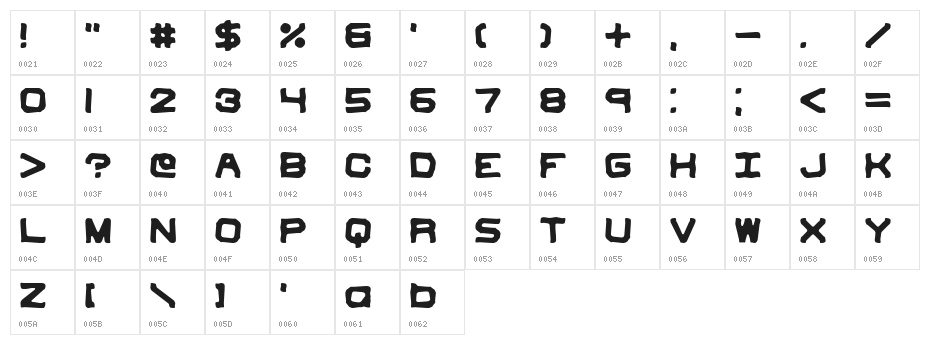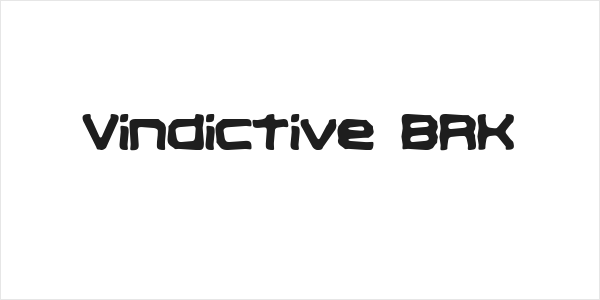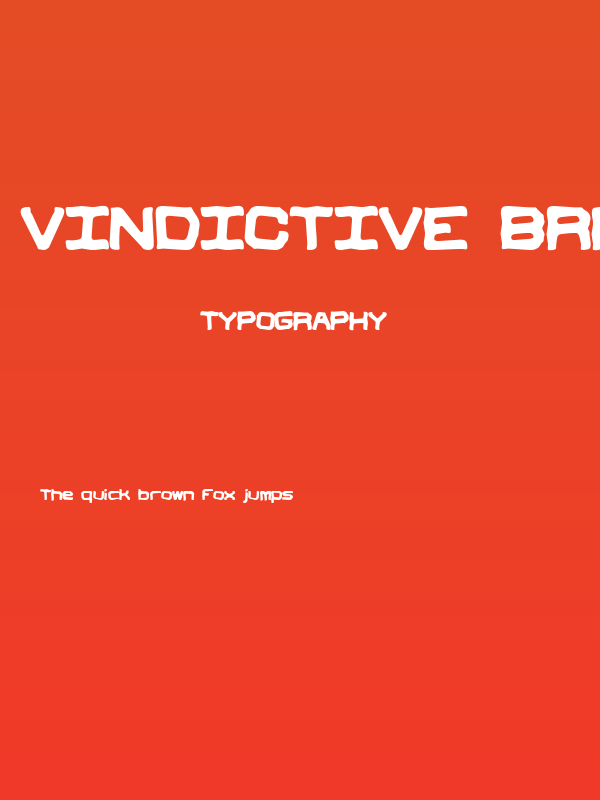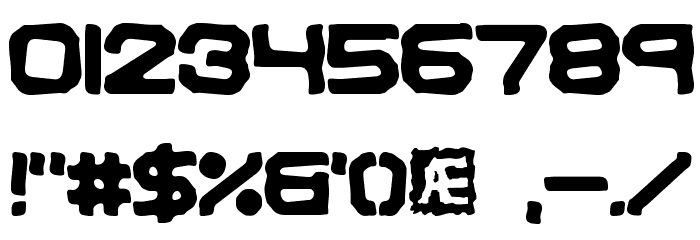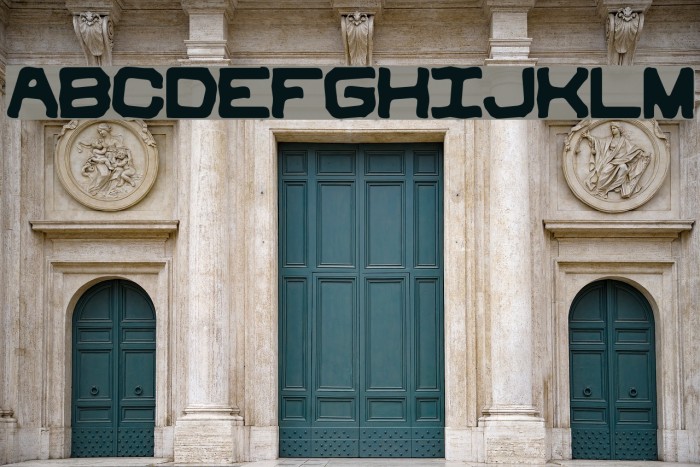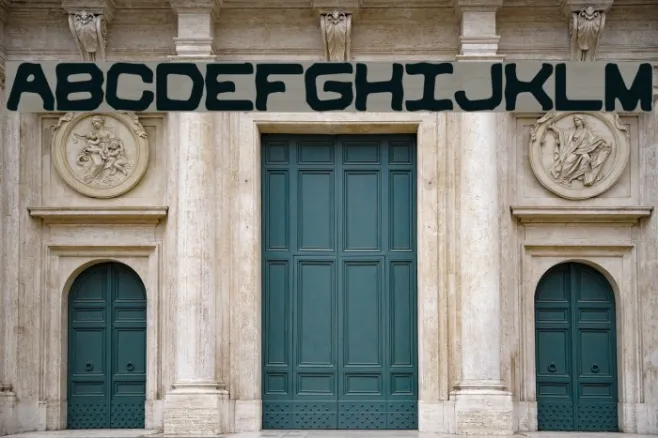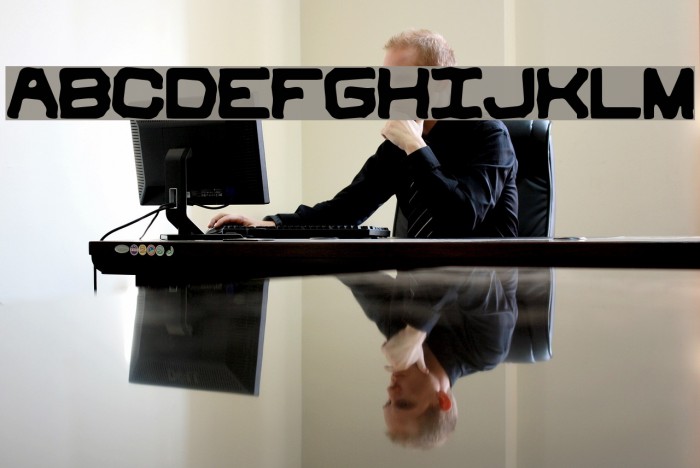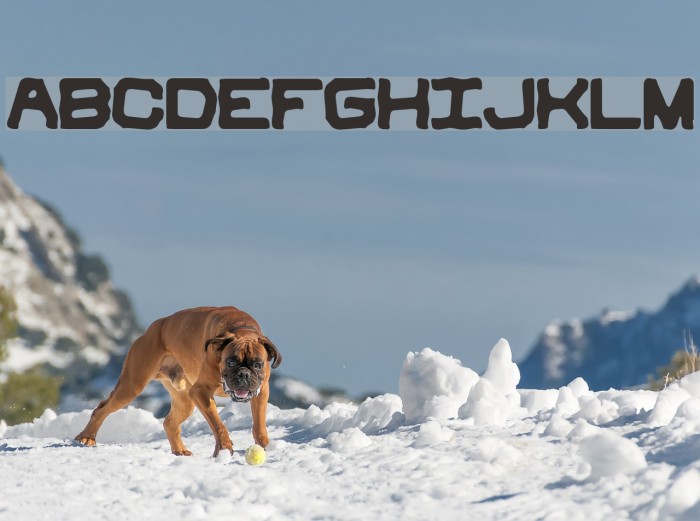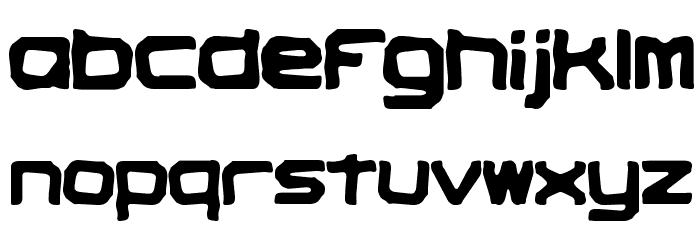
Vindictive BRK Font
Vindictive BRK Description
This font features a bold and rugged design with a distinctly hand-drawn appearance. Each character is outlined with a thick, uneven stroke, giving it a raw and organic feel. The letters are slightly irregular, adding to the font's unique and expressive style. The uppercase and lowercase letters maintain a consistent weight, while the numbers and special characters complement the overall aesthetic. The font's playful yet edgy look makes it suitable for projects that require a standout, artistic touch.
| Use Case | Logos, Headlines, Posters |
| Proposed Projects | Ideal for posters, album covers, graffiti art, and creative branding projects. |